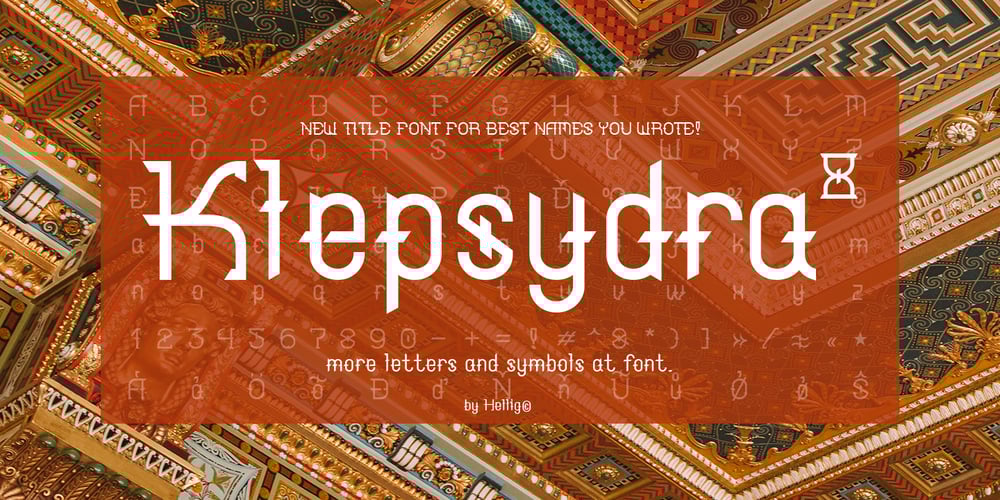
Klepsydra
Klepsydra font
Klepsydra Font Family was designed by Oleg Kuzmin and published by Hellig. Klepsydra contains 1 styles and family package options. When creating the font, I was inspired by the various names of musical groups and sci-fi movies. I took the hourglass shape as a basis and added various serifs to it, hence the name of my font appeared – Klepsydra, as in the Greek hourglass. This style has an abbreviation – “Z”. I will develop this font family and will add new styles, as well as characters.